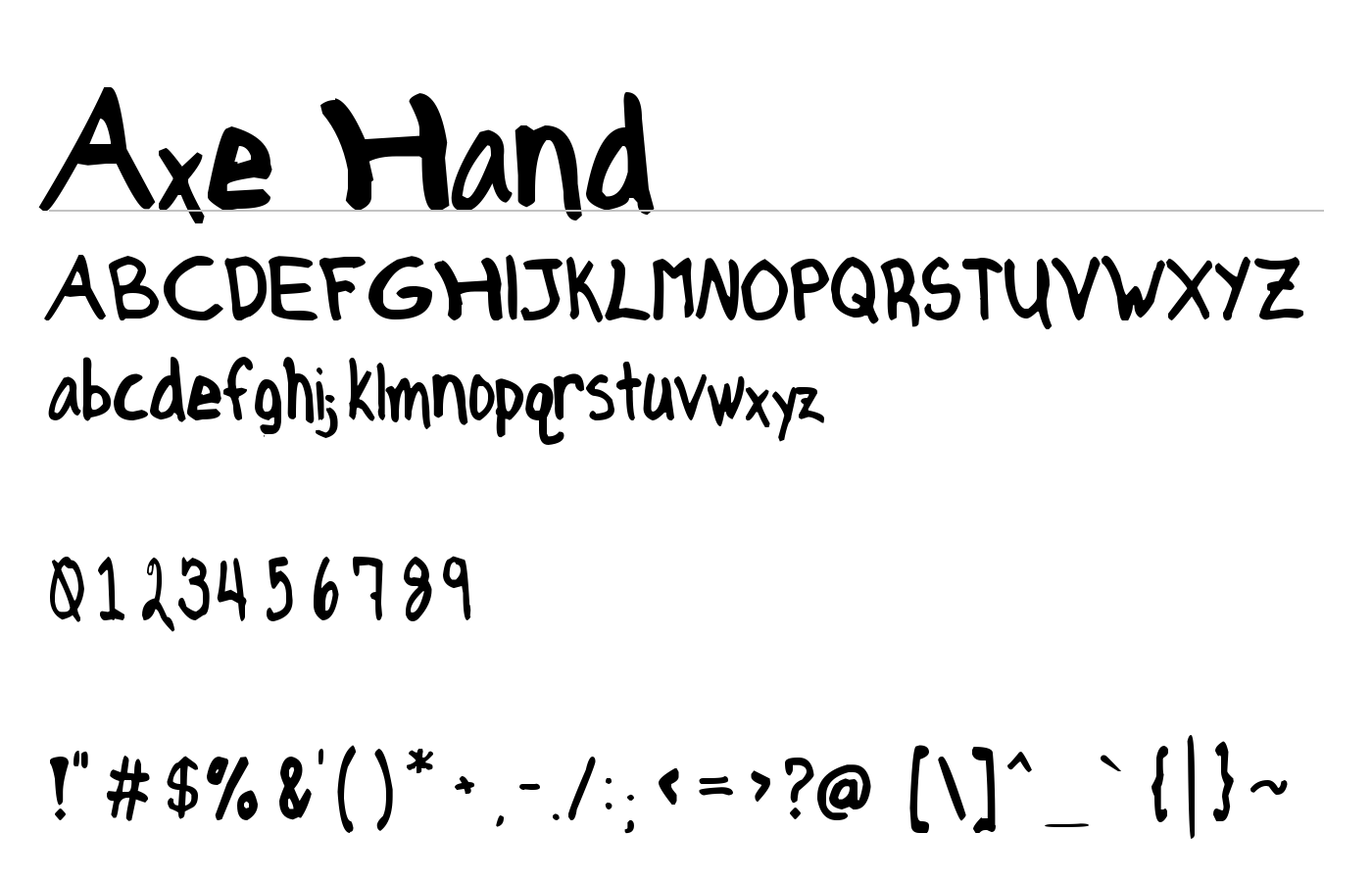
Axe Hand Font is a lively, casual handwritten typeface with a playful and organic feel. Its irregular strokes and slightly uneven shapes create a friendly, approachable appearance, making it ideal for informal branding, creative projects, and designs that need a personal touch. This font works well in headlines, invitations, and any context where a relaxed, human vibe is desired.
Axe Hand Font
About Axe Hand Font